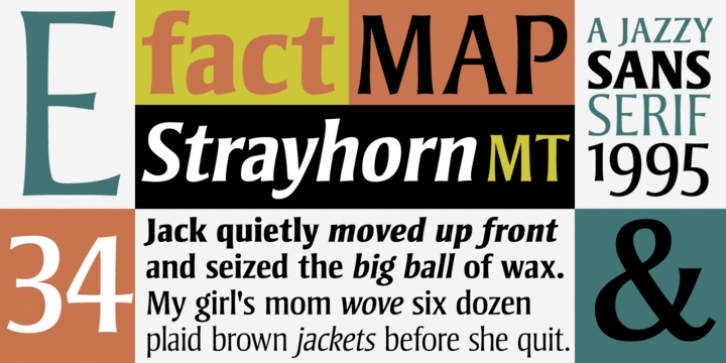
Strayhorn was designed by Michael Harvey and published by Adobe. Strayhorn contains 8 styles and family package options.
Happy to work behind the scenes, yet able to take center stage. Sophisticated, yet never intimidating. Designer Michael Harvey has imbued a typeface with the personality of Billy Strayhorn, jazz great Duke Ellington's right-hand man and collaborator.
Strayhorn, a sans serif adaptation of Harvey's Ellington, eloquently conveys a dynamic range of emotions. The light and regular weights of Strayhorn provide easy legibility at text sizes, while the subtle curves and lilting terminals - not quite serifs - add calligraphic flair at display sizes.
Use the bold and extra bold faces for a more vigorous presence in headlines, advertising or on the Web. The companion Small Caps and Oldstyle Figures package ensures that, like its versatile namesake, Strayhorn's artistic repertoire is virtually unlimited.